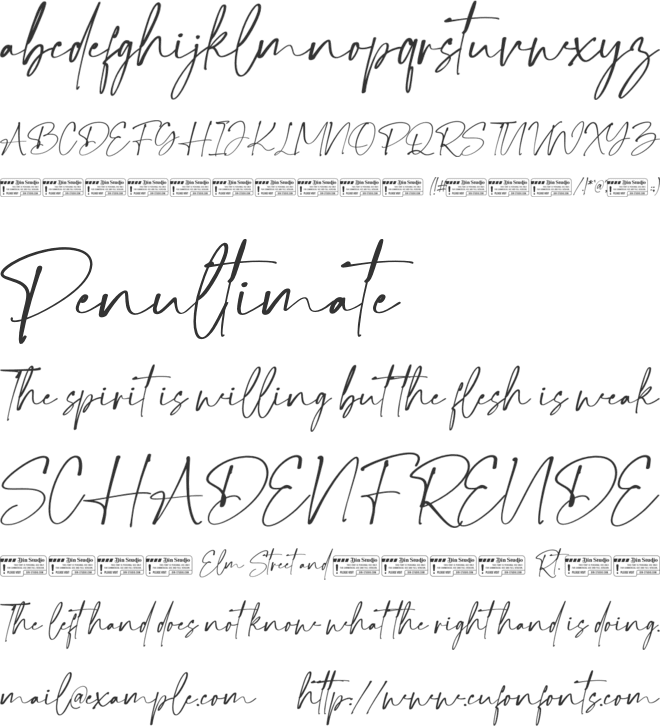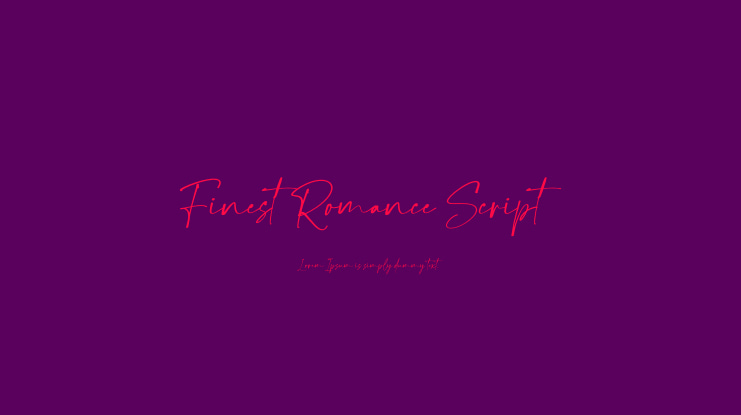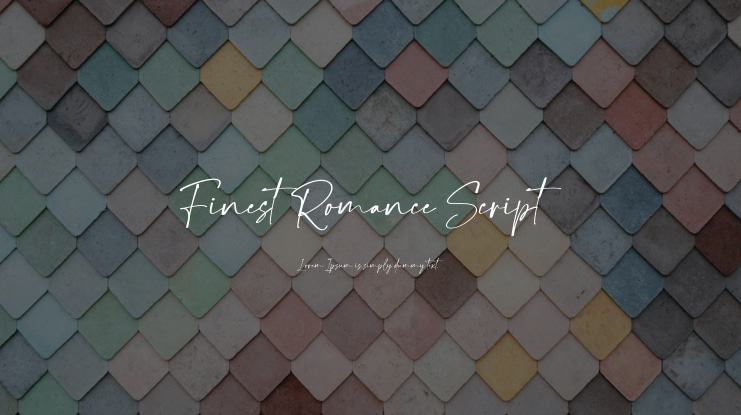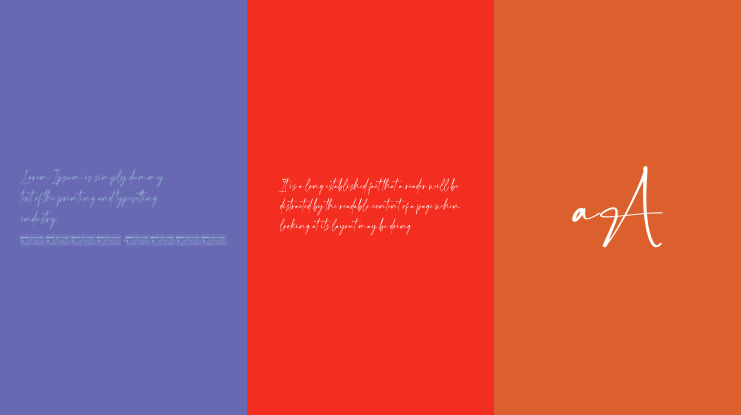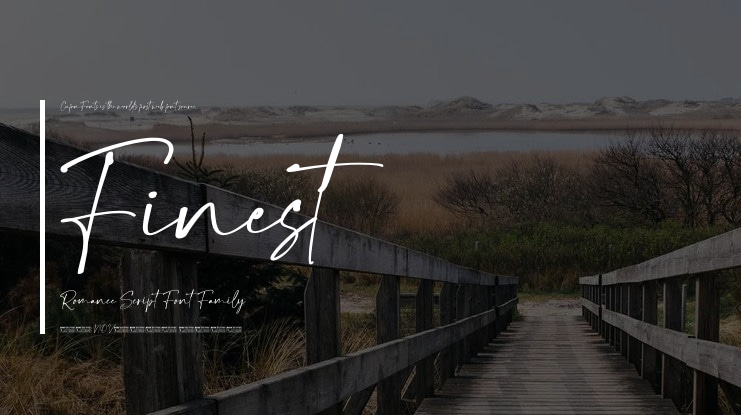
Finest Romance Script Font Family
Indulge in the timeless elegance of Finest Romance, a captivating font duo that combines a modern serif with script font. The serif font in Finest Romance is crafted in a modern style, exuding sophistication and class. Each letter is meticulously designed with clean lines and elegant curves.